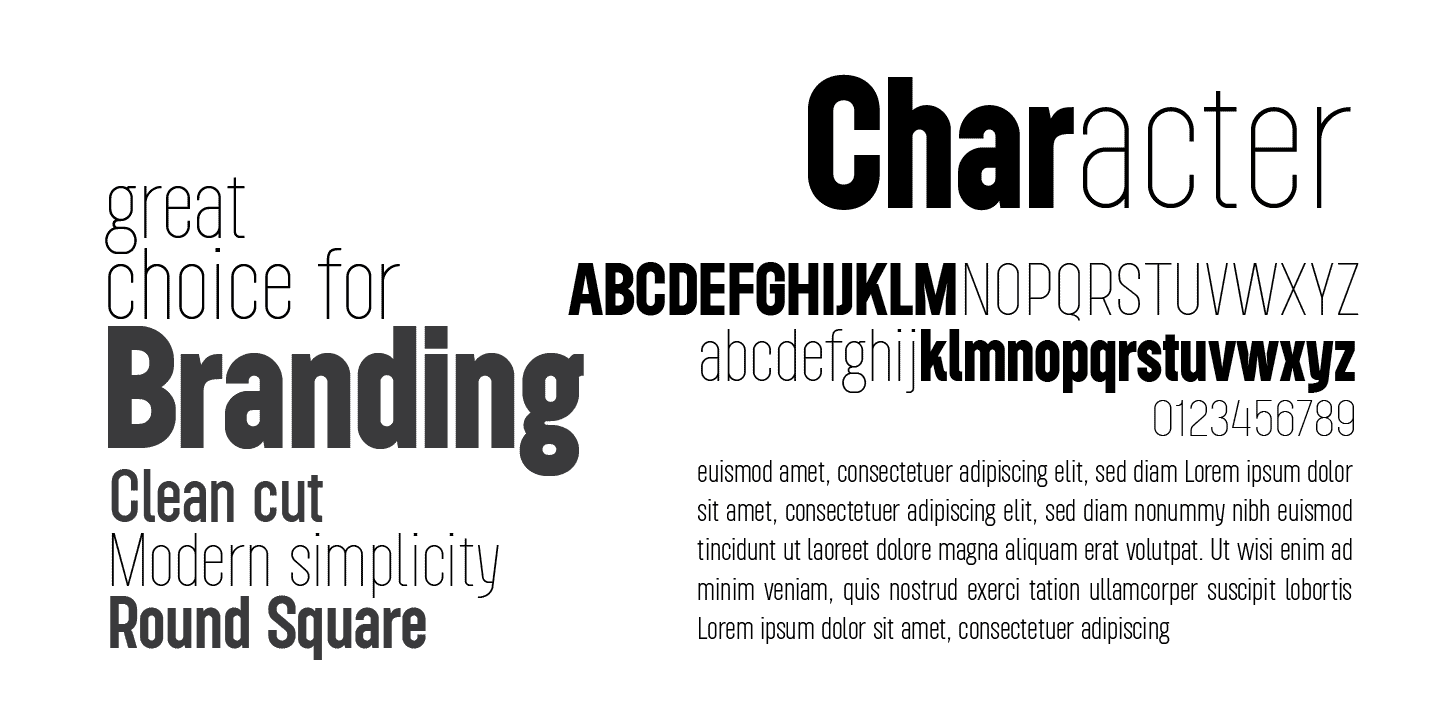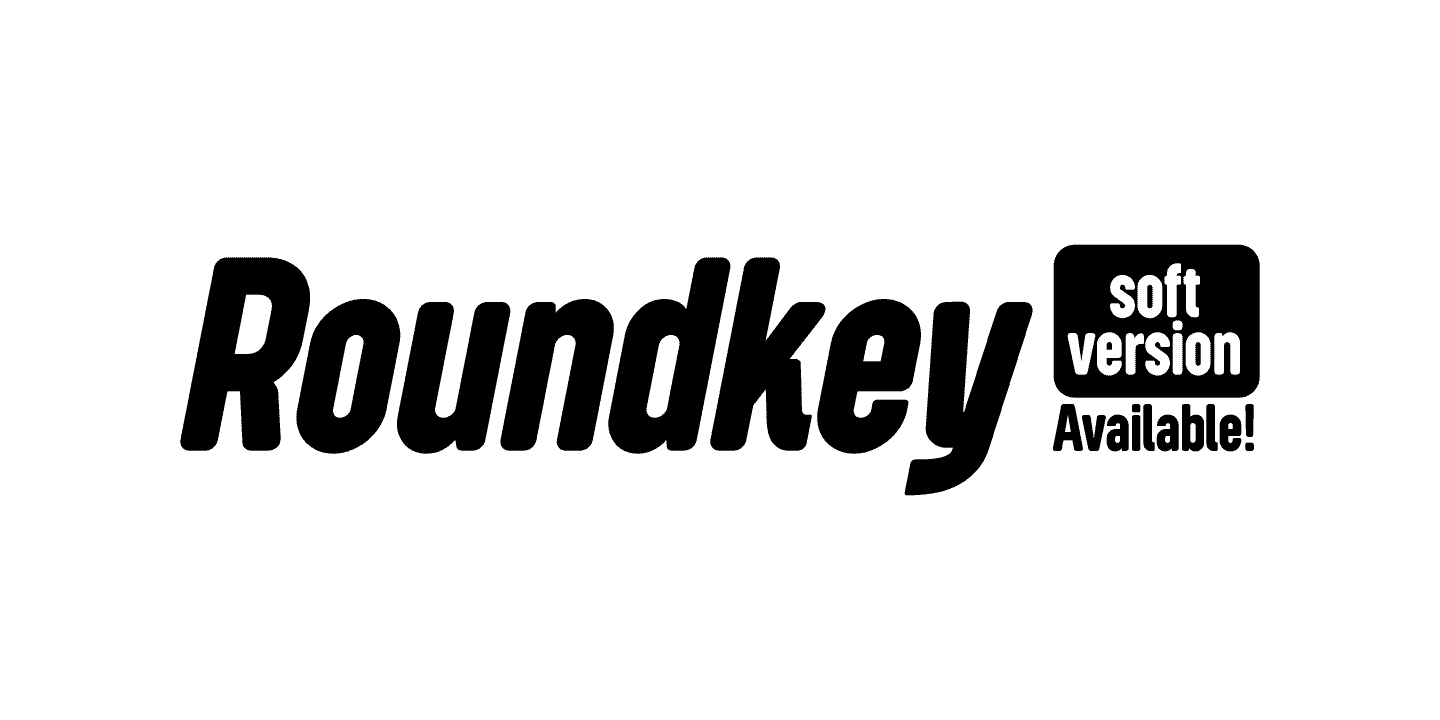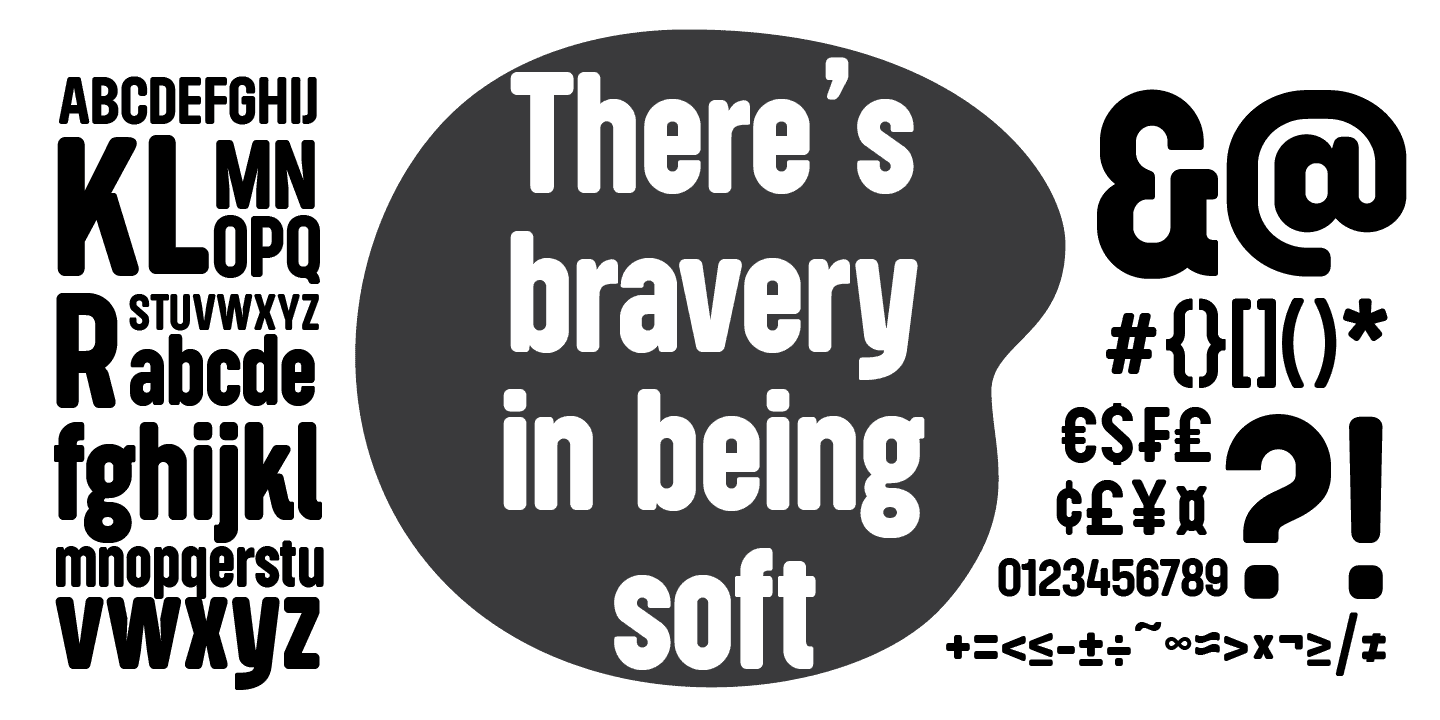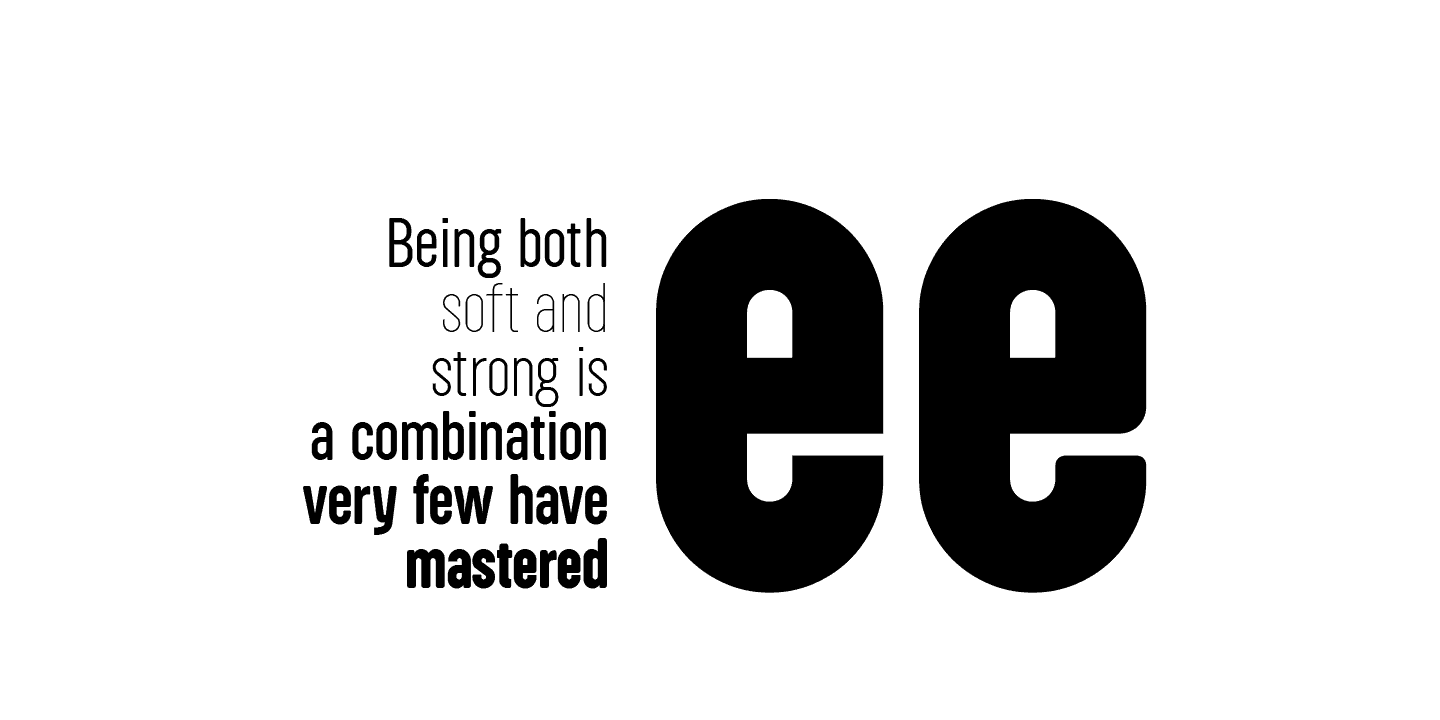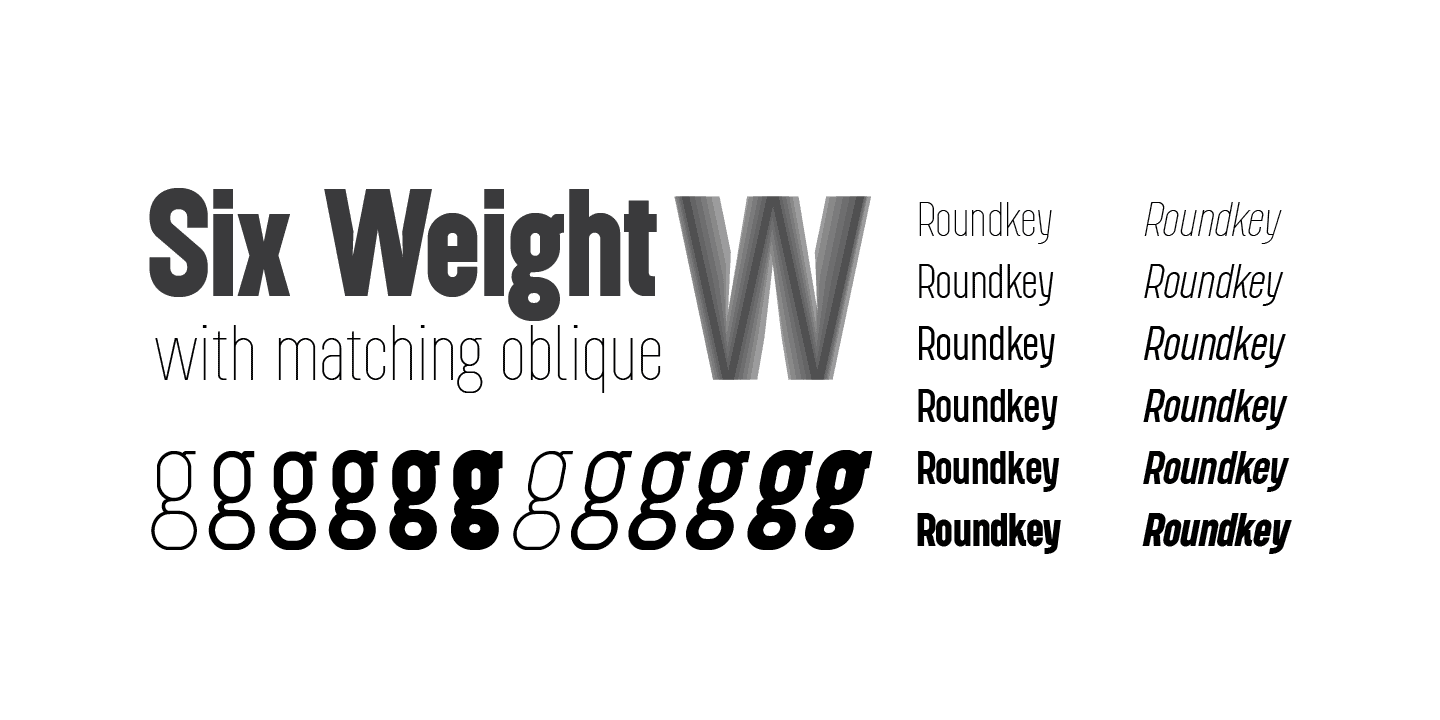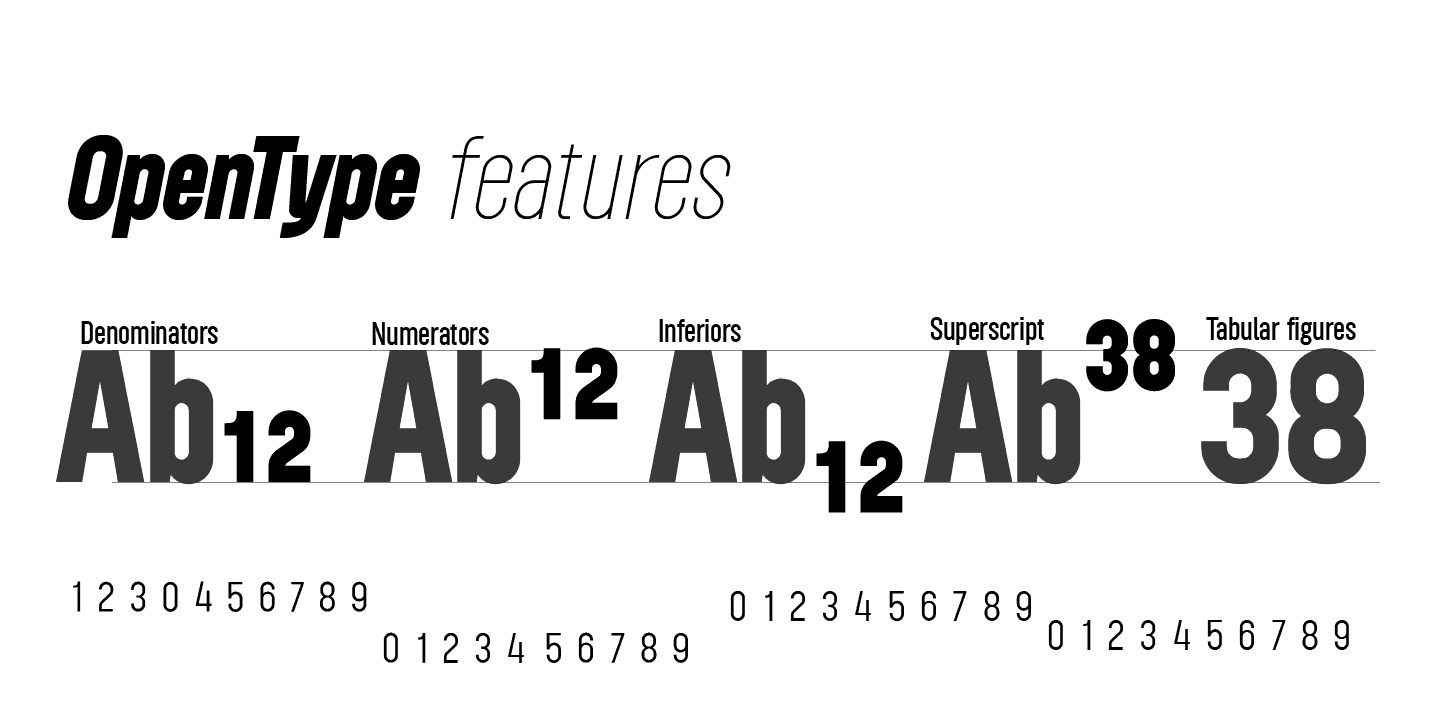
Roundkey Font Family, 24 Fonts for Desktop & Web with Matching Italics
Roundkey is font family with a modern, clean and readable concept, featuring 2 versions, one with sharp and one with soft shapes, 6 weights, and delivered with files for desktop as well as web use so you can apply this typeface to your editorial projects, web designs, UI projects, display compositions and print templates, and maintain a consistent typographic identity across all media while using a professional, powerful looking sans-serif!
Roundkey features 36 font variations, weights including Thin, Light, Regular, Medium & Bold as well as uprights and obliques - the files in this font family package are delivered in OTF format for desktop use, with a huge variety of OpenType features including standard and discretionary ligatures, localization, numerators, denominators, tabular figures and many more
- Roundkey and Roundkey Soft versions
- 24 font variations
- Upright & oblique fonts
- Thin, extralight, light, Regular, medium & bold
- Geometric sans-serif font design